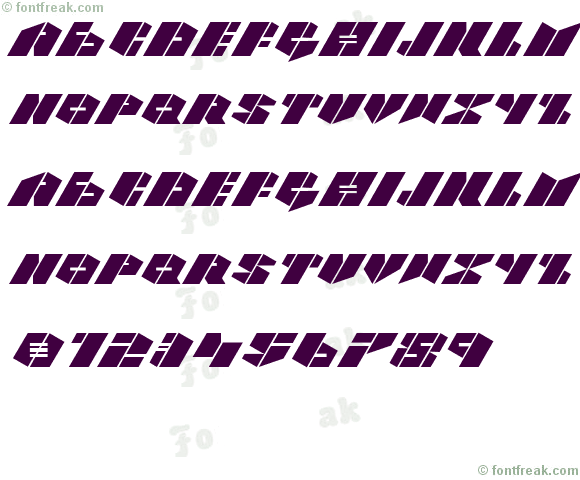
CARBON Regular
About CARBON Regular
Introducing the CARBON Regular font by Krunoslav Sokic, a striking display typeface that captures attention with its bold, angular design. This font belongs to the category of display typefaces, making it ideal for projects that require a strong visual impact. With its unique geometric shapes and sharp edges, CARBON Regular stands out as a contemporary choice for modern branding. The font features a medium stroke weight, providing a balanced yet assertive appearance that commands attention. The spacing between the characters is designed to enhance readability while maintaining an edgy aesthetic.
CARBON Regular is perfect for a variety of applications, particularly in creative industries. It excels in use cases such as movie posters, where its dynamic form can convey excitement and drama. Additionally, this font works well for product packaging, helping to create memorable brand identities. Small business owners will find it useful for crafting eye-catching promotional materials, while graphic designers can utilize it in logo designs that require a modern twist. Content creators may also appreciate its versatility for social media graphics and website headers.
In a sea of standard fonts, CARBON Regular emerges as a distinct option that marries functionality with artistry. Its striking design and versatility make it a standout choice for anyone looking to make a memorable impression in their visual communications. Whether for digital or print, CARBON Regular is sure to elevate any project it graces.